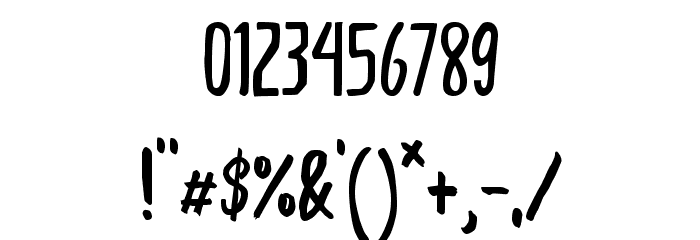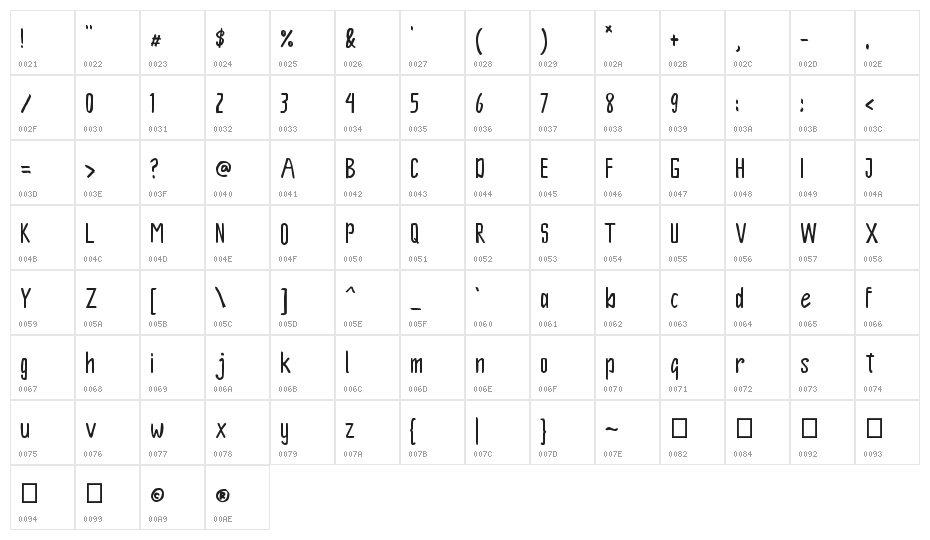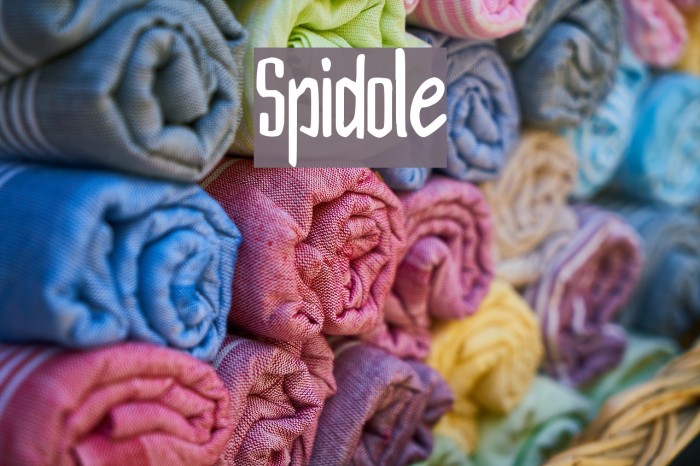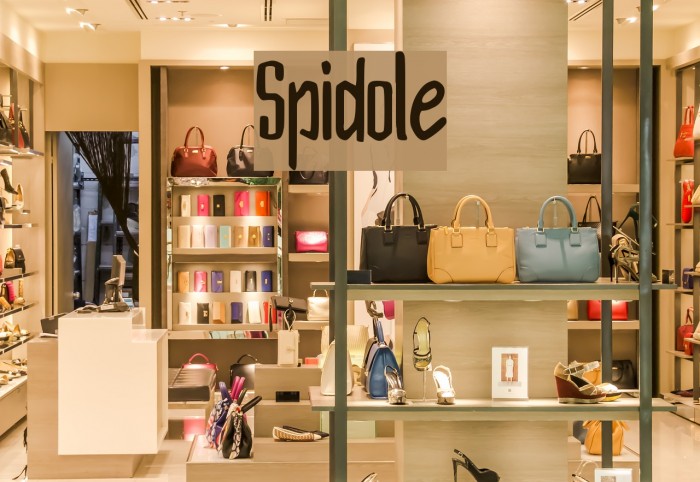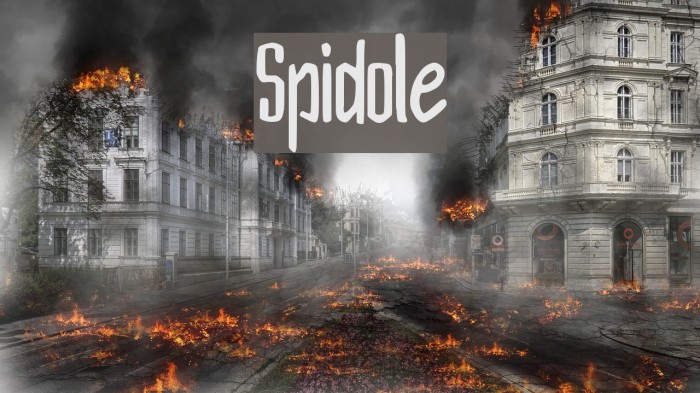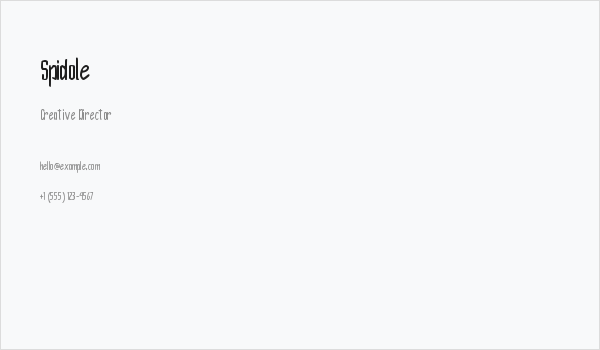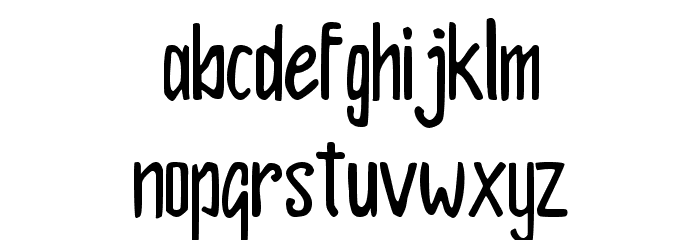
Spidole Font
Spidole Description
This font features a playful and casual style with a handwritten appearance. The letters are slightly elongated with a consistent stroke width, giving it a friendly and approachable look. The uppercase and lowercase letters maintain a uniform height, while the numbers and special characters blend seamlessly with the overall design. The font's informal nature makes it suitable for creative and fun projects, adding a touch of personality to any text.
| Use Case | Headlines, Logos, Informal text |
| Proposed Projects | Ideal for greeting cards, children's books, playful branding, and casual invitations. |